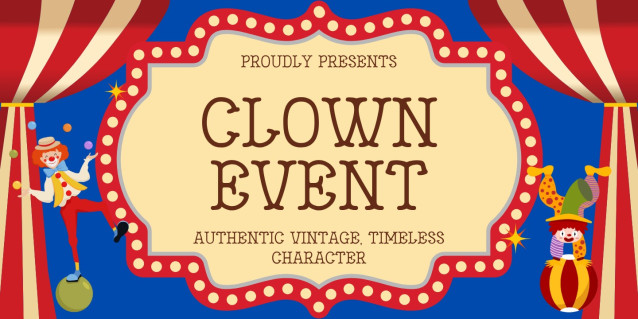
Clown Event Font
Clown Event Font, a slab serif font that feels like it was lifted directly from a classic typewriter or a vintage circus poster.
We didn’t just make a font. We crafted a feeling—the warmth of old paper, the character of letterpress ink, and the magic of a timeless story.